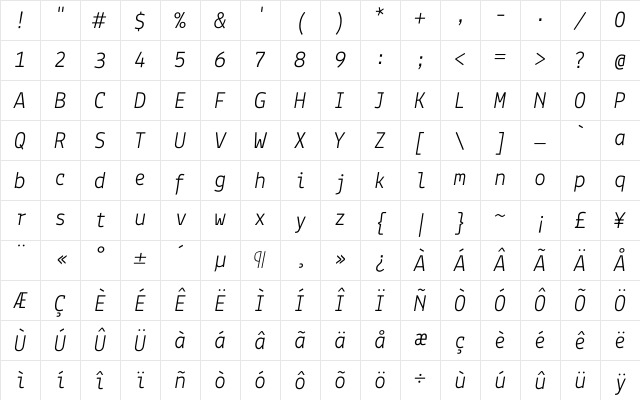
Lekton Nerd Font Italic
Designer: Paolo Mazzetti, Luciano Perondi, Raffaele Flato, Elena Papassissa, Emilio Macchia, Michela Povoleri, Tobias Seemiller, Riccardo Lorusso, Sabrina Campagna, Elisa Ansuini, Mariangela Di Pinto, Antonio Cavedoni, Marco Comastri, Luna Castroni, Stefano Faoro,
Design Context for Lekton Nerd Font
Lekton Nerd Font is a composed and adaptable typeface that performs quietly and consistently across a wide range of design contexts. The slanted form adds forward momentum and visual energy.